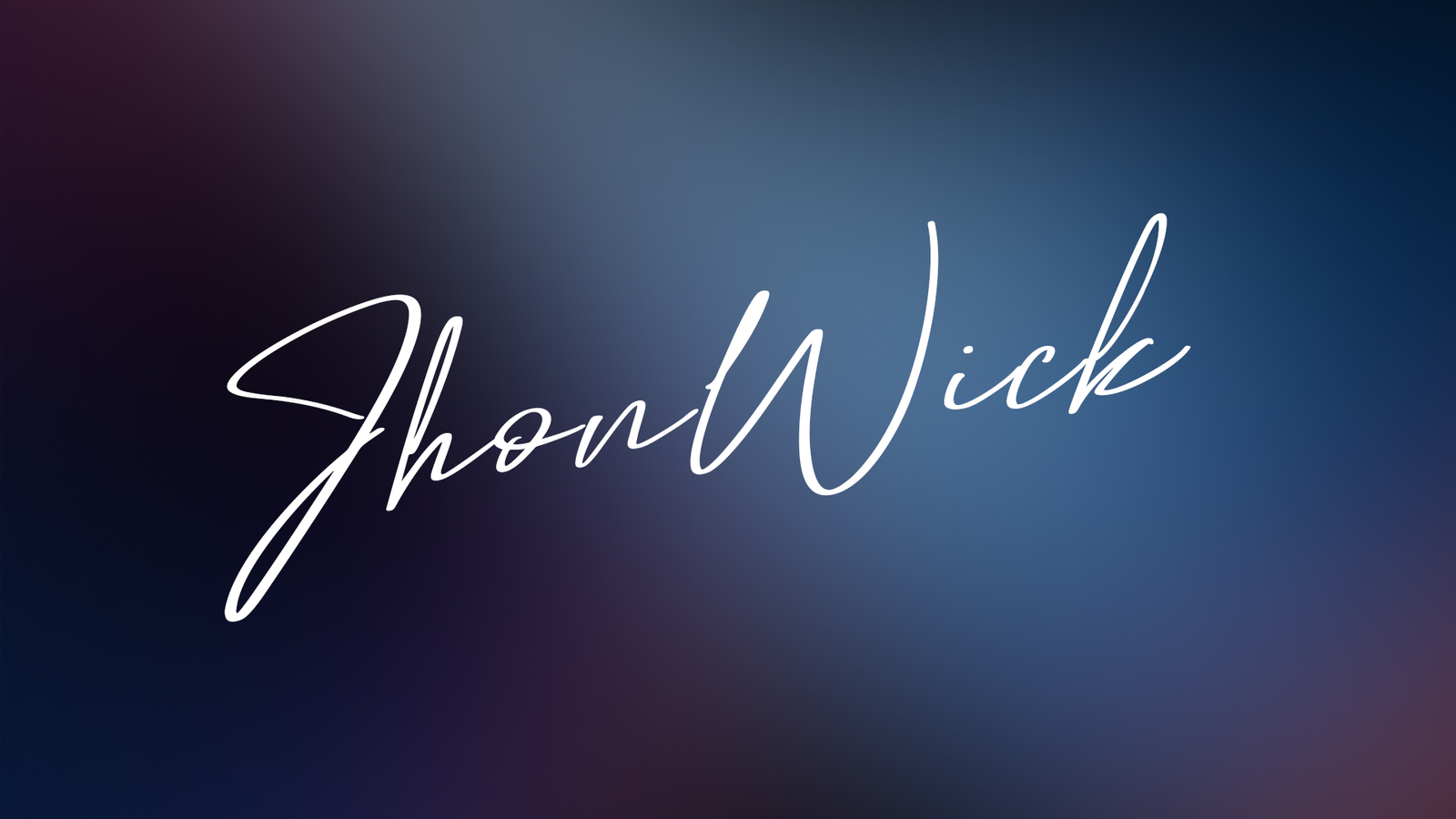
Modern fonts combine elegance, simplicity, and innovation, making them ideal for contemporary design projects. With their clean lines, balanced proportions, and stylish aesthetics, they bring a polished and professional look to branding, websites, advertisements, and digital media. Whether you prefer sleek sans-serif fonts, refined serif typefaces, or futuristic geometric styles, modern fonts add sophistication and clarity to any visual composition. These fonts are widely used in corporate branding, tech startups, luxury packaging, and editorial layouts, offering a perfect blend of readability and visual appeal. Designed for high performance, they work seamlessly across print and digital platforms. Our free modern font collection includes a variety of options in TTF and OTF formats, ensuring compatibility with popular design software. Elevate your projects with high-quality modern fonts that enhance creativity while maintaining a sleek, cutting-edge aesthetic. Download now and bring a fresh look to your designs!
Best Premium Signature Font